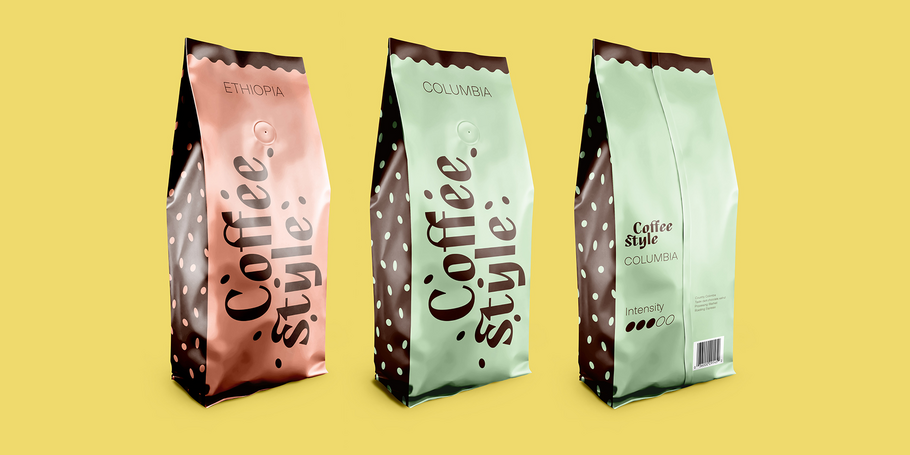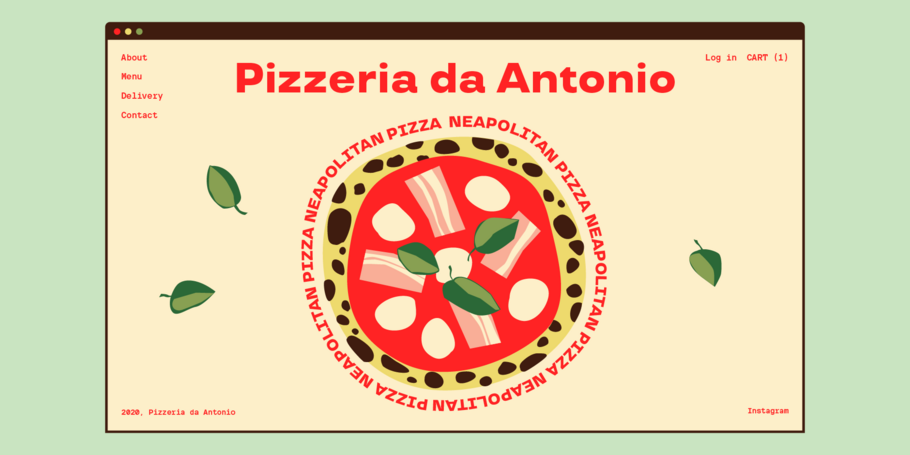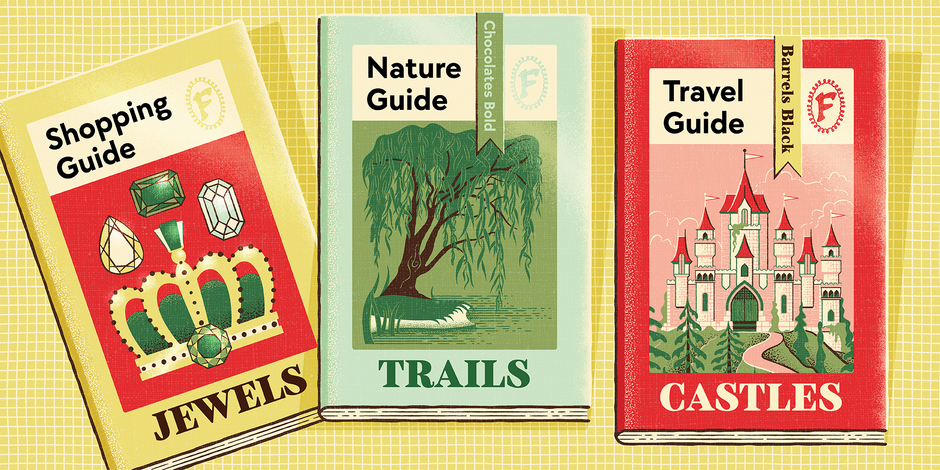
TypeType's Fontacular Miraculous Bundle
We present you with the best TypeType font bundle ever. This time we have selected and packaged into one incredible bundle two styles from each of the most popular and in-demand TypeType font families.
In our bundle, you can find both very trendy and relevant fonts, such as TT Runs or TT Trailers, as well as the ‘super-heavy lifters’ like TT Norms, TT Common and TT Hoves. In total, the bundle includes 55 high quality fonts. Buying the bundle, you get a unique opportunity to get acquainted with a very large number of TypeType fonts at once.
In addition, this bundle includes a new product that has just been released — we are talking about a pair of display OUTLINE styles created on the basis of the TT Norms Pro Bold.
TypeType Fontacular Bundle
The fonts from this bundle can be used in a variety of ways.  In this inspiration gallery, we have showcased how you can use them in publication, packaging and UI.  Share your creation on twitter and instagram using #FONTACULAR @Myfonts and we may showcase it here.